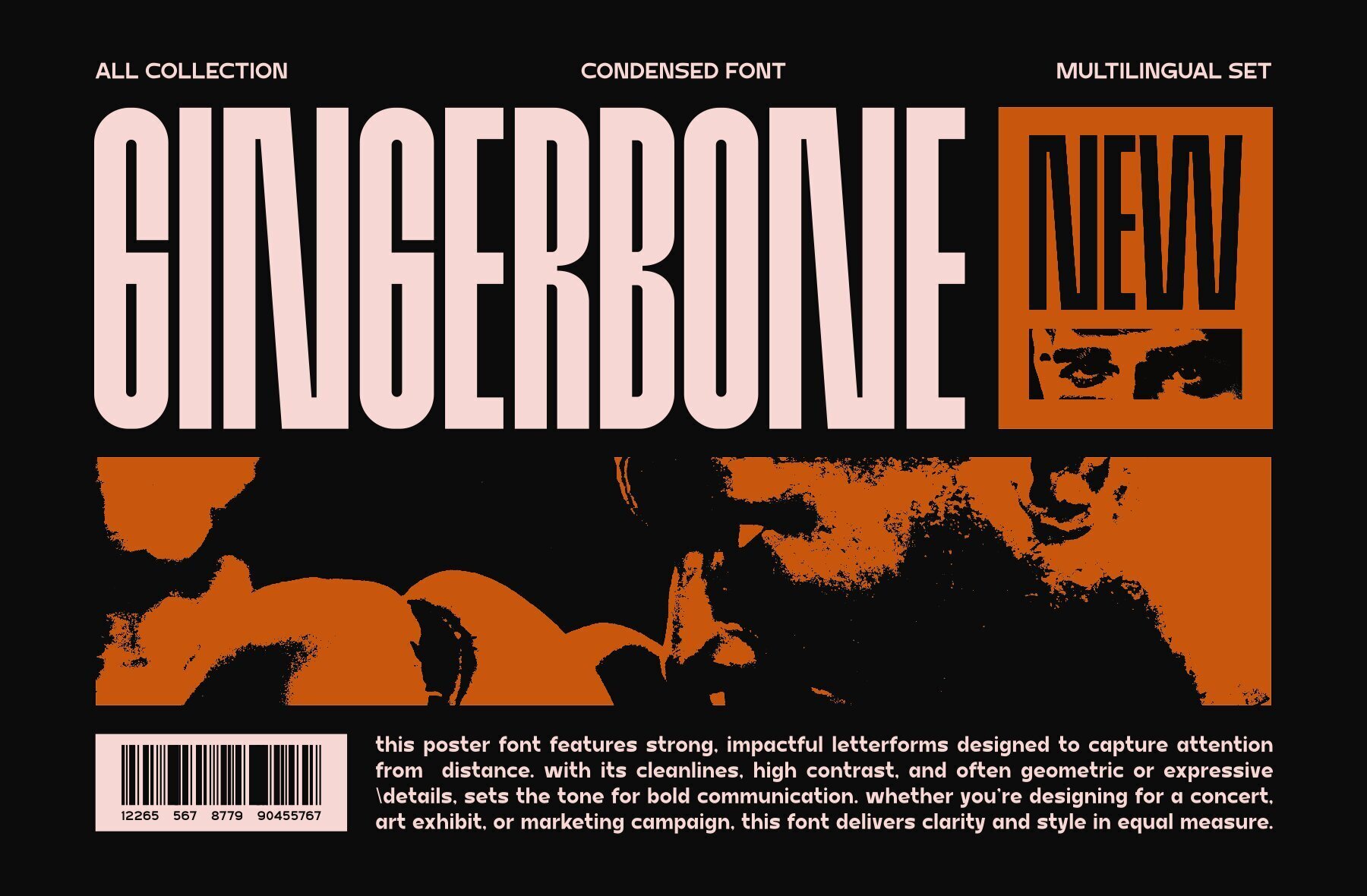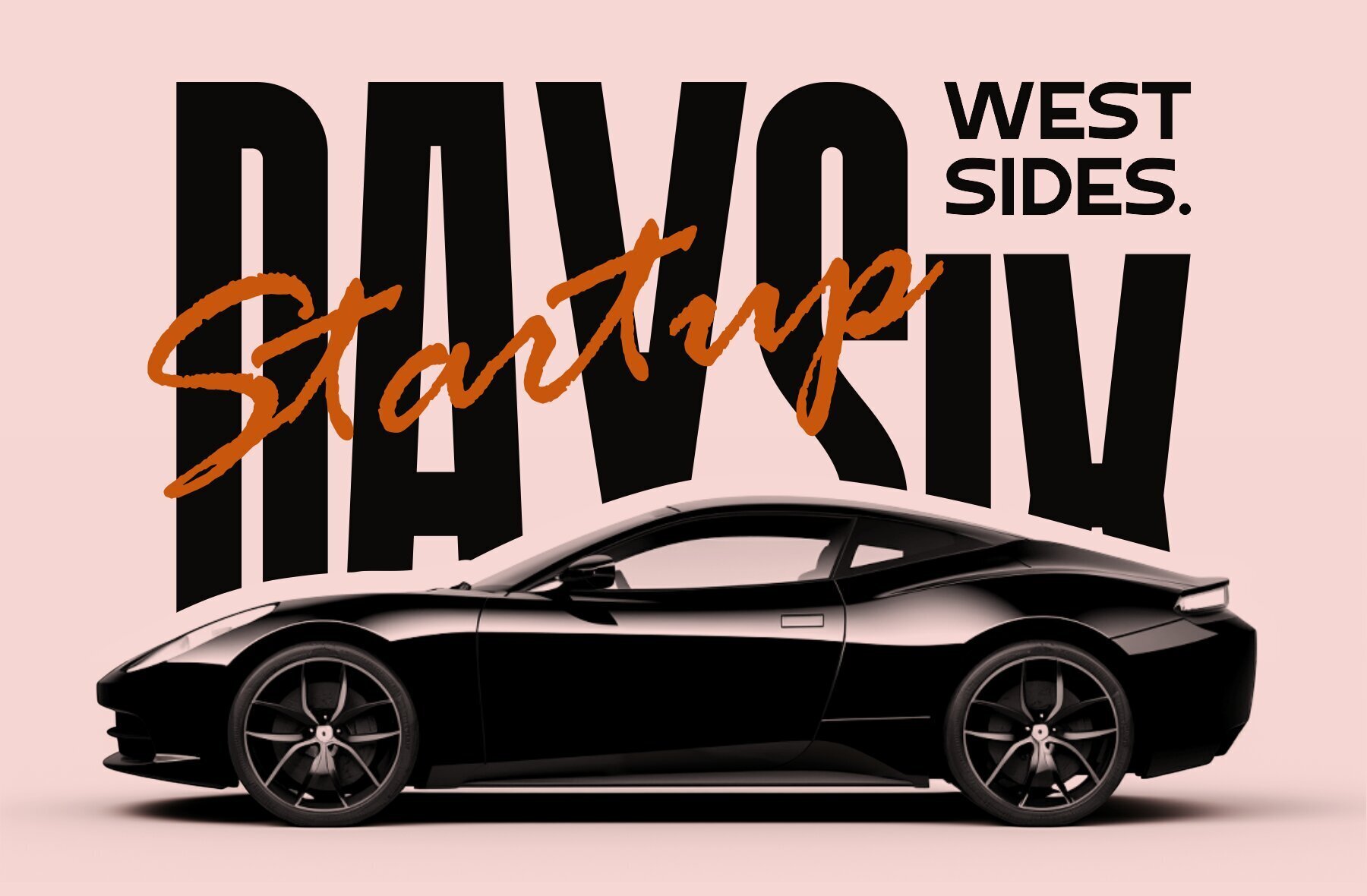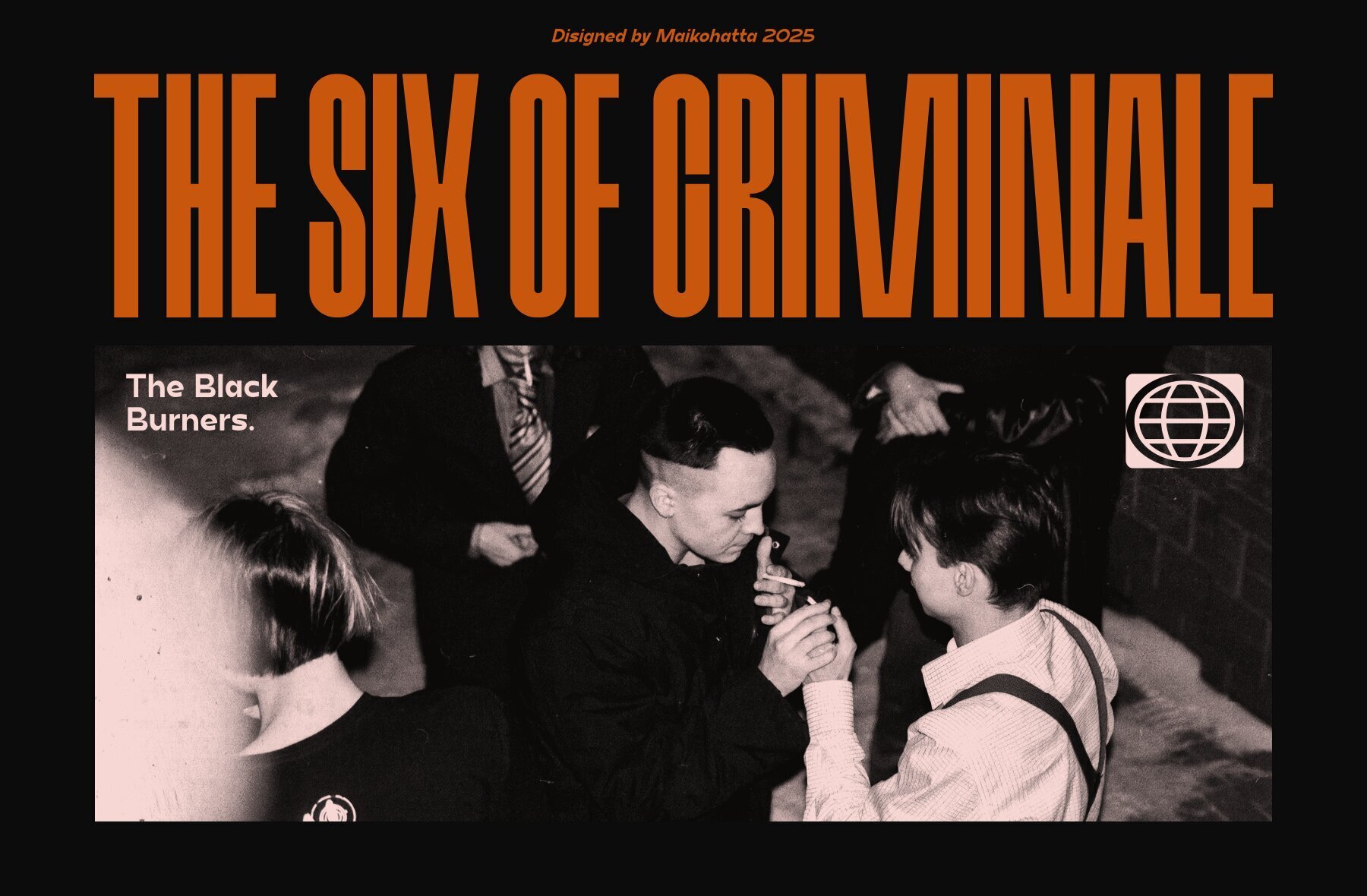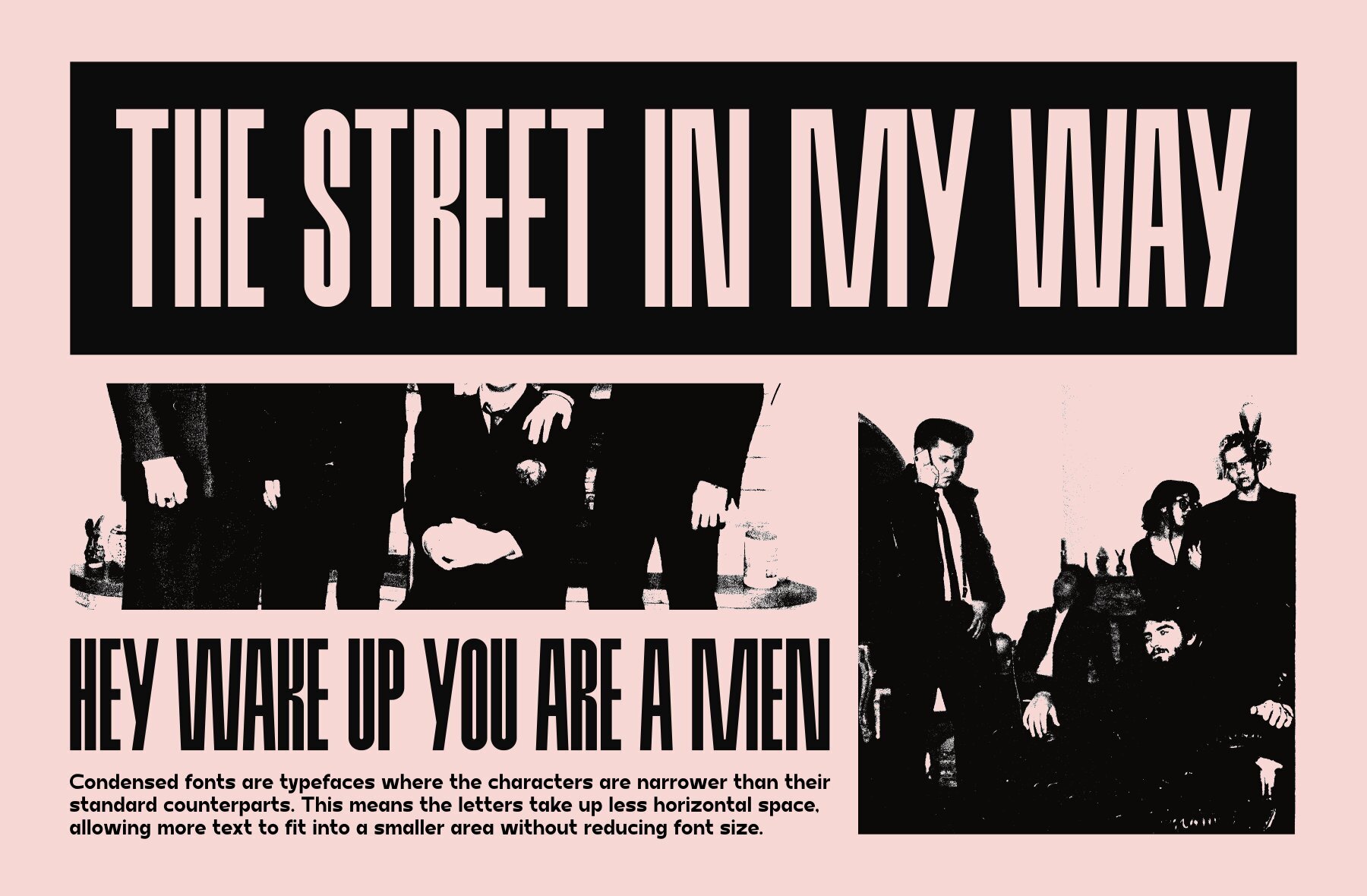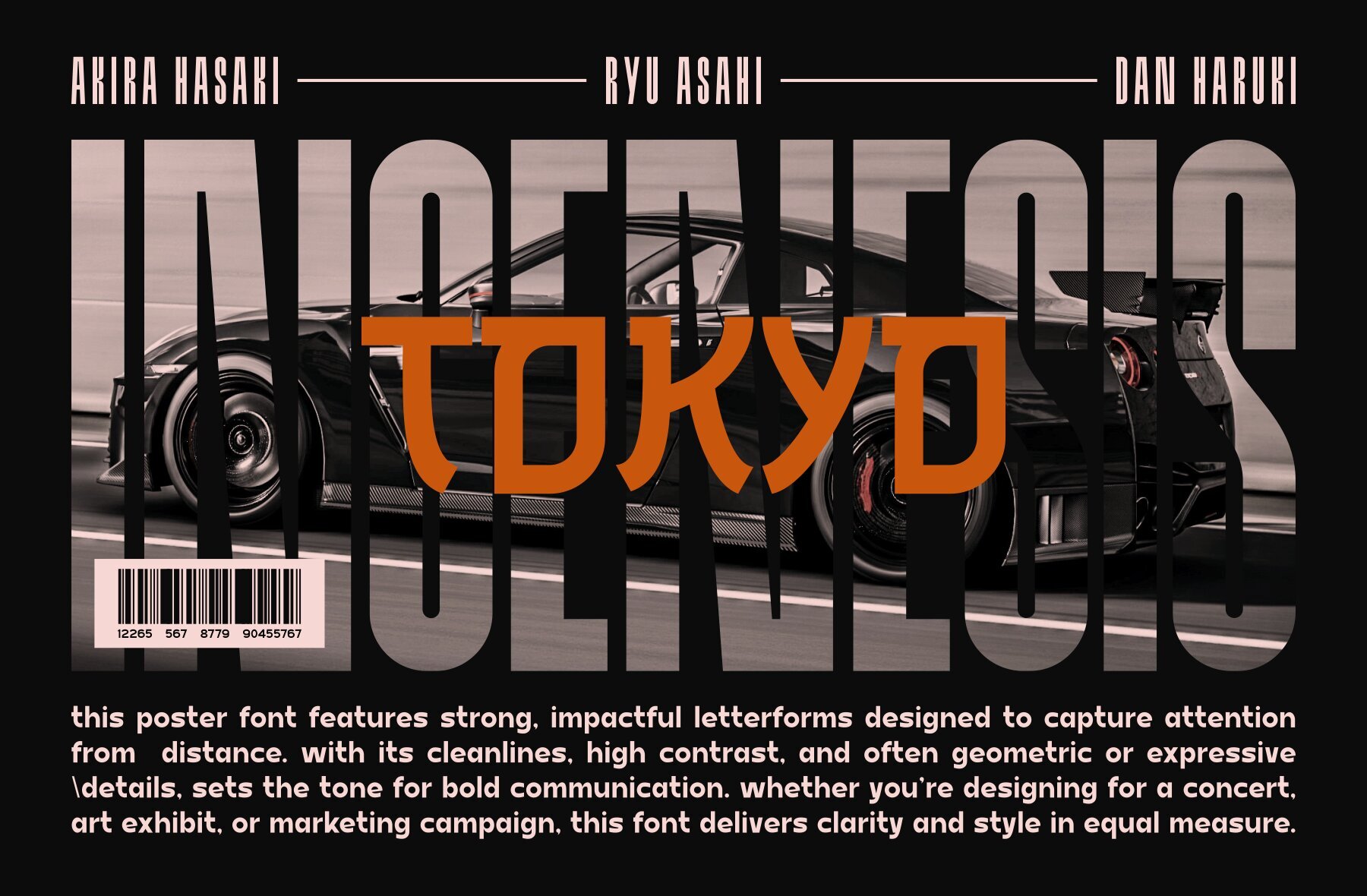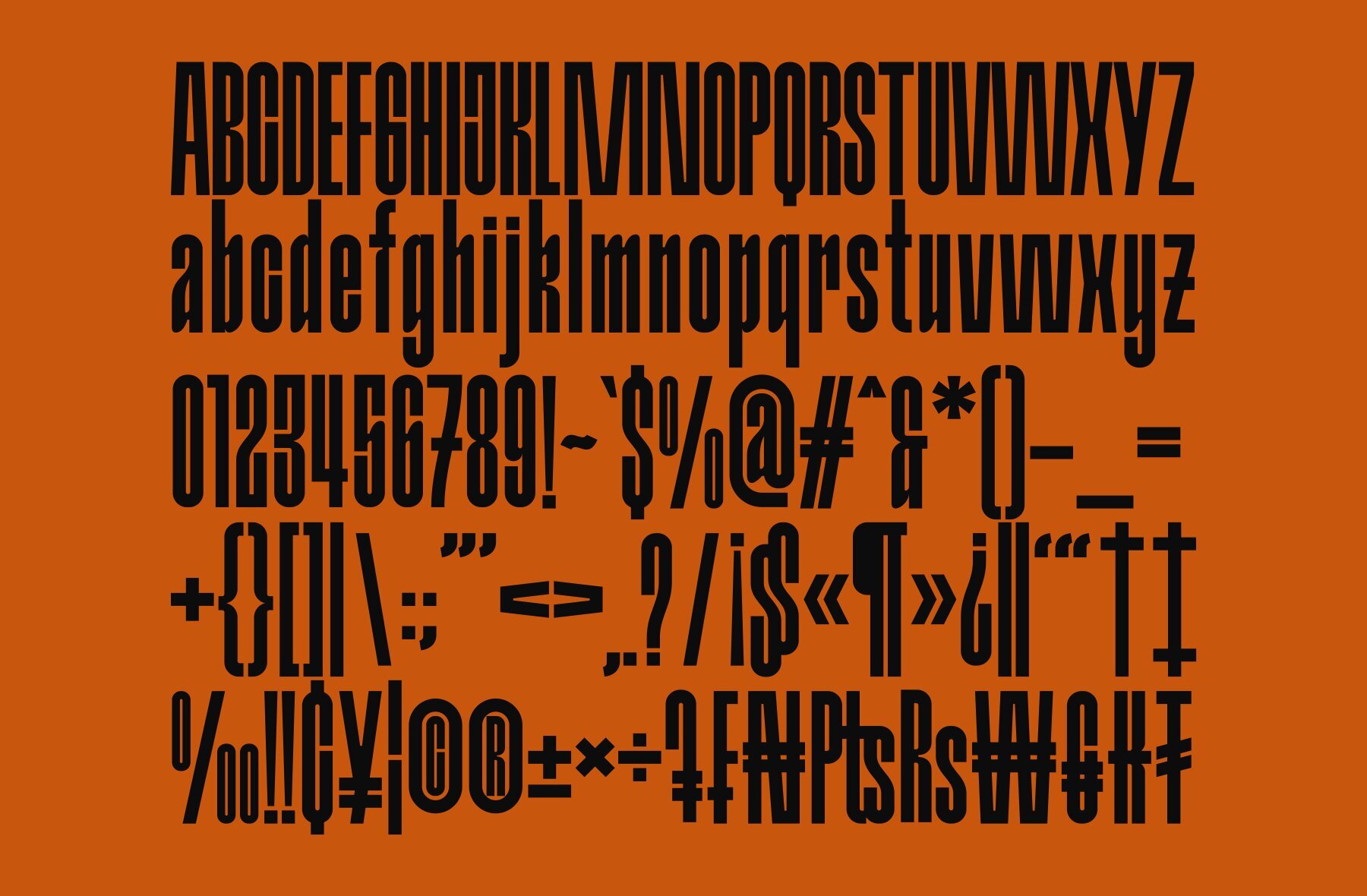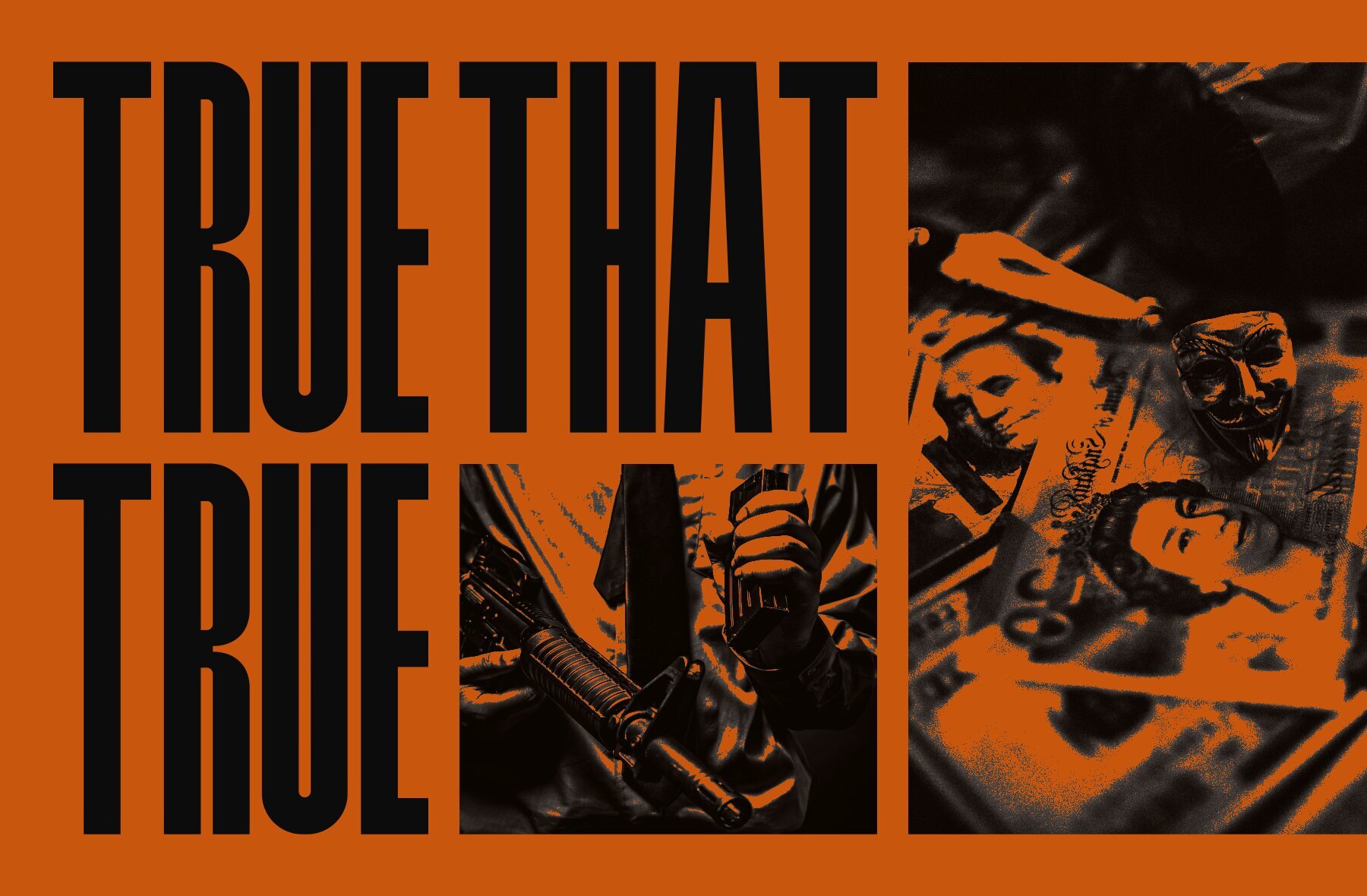
Gingerbone Font
GINGERBONE
The Gingerbone font features slim and streamlined letterforms, setting it apart from regular or expansive fonts. Designed with a sharp, modern sensibility, this condensed typeface seamlessly lends itself to various graphic design ventures, enhancing print materials and other media with its unique form.Introducing Gingerbone: A Sleek Sans Serif Condensed Font